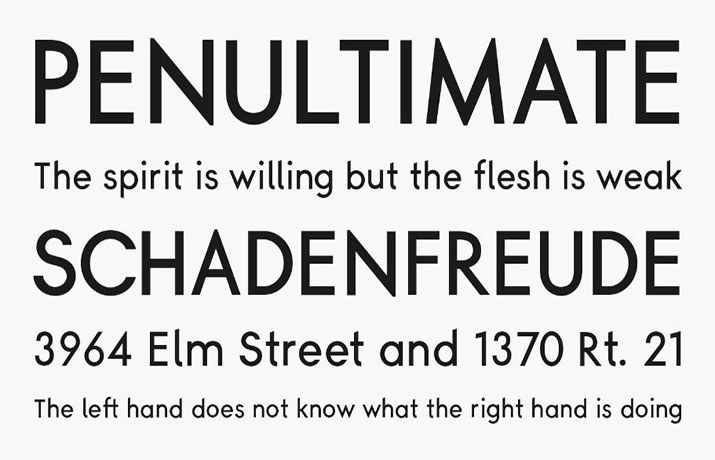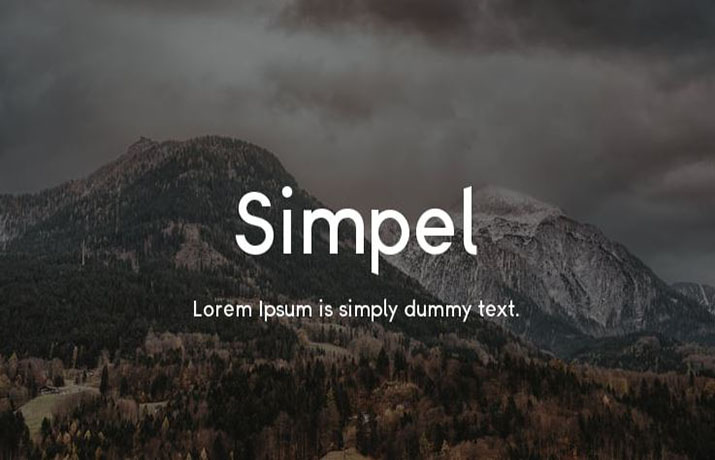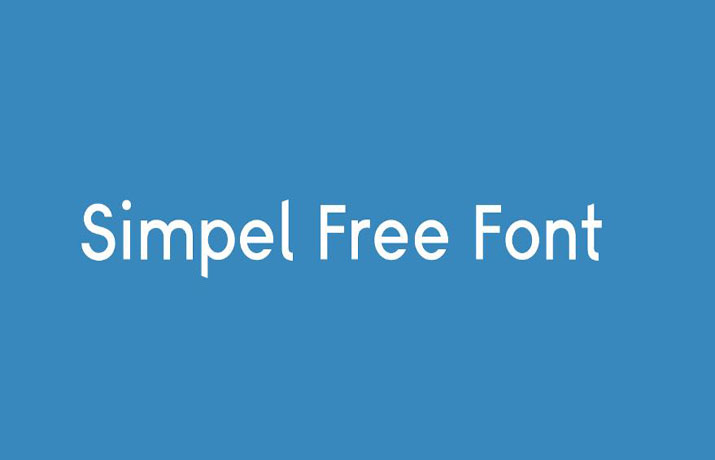
Simpel Font is a contemporary, geometric, low-contrast sans-serif typeface. It was designed and published by Janko Jovanovic.
This font family comes in a single-style medium with an OTF format. This single style contains 302 beautiful glyphs like numbers, symbols, and punctuation. Moreover, it also supports 89 languages.
This type of structure is created with thin strokes in which the designer has placed proper baselines and used rounded corners. And there is more space between letters.
It gives a unique and cool setting that relaxes the reader. You can use it for various purposes such as posters, headers, titles, paragraphs, book covers, invitations, documents, and more.
- Uppercase & lowercase letters, numbers, symbols, and punctuation
- Open Type feature
- 302 unique glyphs
- 89 multilingual languages support
| Style: | Geometric, Sans Serif, Display |
| Font Designer: | Janko Jovanovic |
- This modern-looking font is an excellent choice for paragraphs, book covers, long text paragraphs, t-shirt printing, special quotes, book covers, paragraphs, headlines, business cards, flyers, social media posters, product packaging, special quotes, and more.
This font supports 89 different languages.